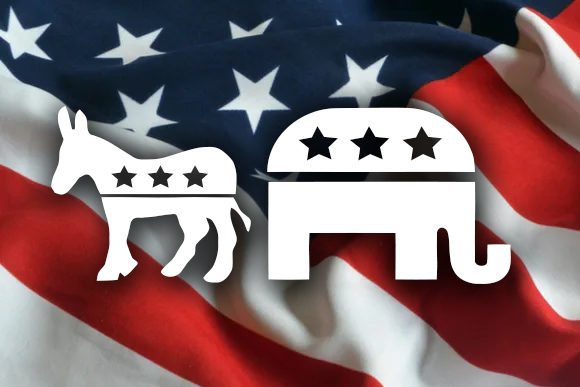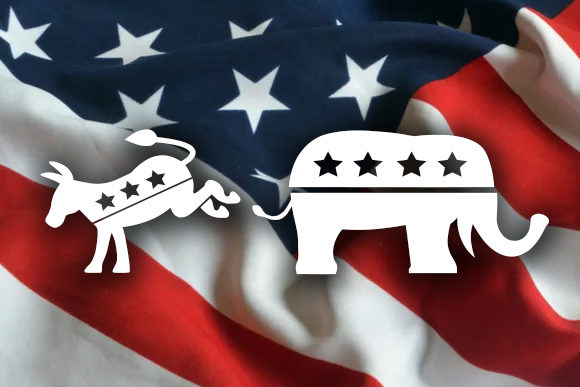
The Ultimate Font for US Elections: A Designer’s Dream Come True
I’ll never forget the time I was working on a project for a client’s US elections campaign. I was struggling to find the perfect font that would capture the essence of American democracy. That’s when I stumbled upon Elections Font, a unique and amazing dingbats font that features donkeys and elephants. It was love at first sight! 💕
What I Love About Elections Font
- ✨ Unique and eye-catching designs featuring donkeys and elephants, perfect for US elections-related projects
- ✅ Easy to use and navigate, even for those who aren’t font experts
- 🌈 A wide range of glyphs and stylistic alternates to add some personality to your designs
While Elections Font is an amazing tool, there are a few things to keep in mind ⚠️:
- 🤔 Some users might find the font a bit limited in terms of versatility, as it’s specifically designed for US elections-related projects
- ⚠️ The font might not be suitable for projects that require a more formal or traditional look
The Story Behind Elections Font
Elections Font was created by a team of designers who wanted to create a unique and fun font that would capture the spirit of American democracy. Inspired by the iconic donkey and elephant symbols of the Democratic and Republican parties, Elections Font is a one-of-a-kind dingbats font that’s perfect for US elections-related projects.
| What type of projects is Elections Font best suited for? | Elections Font is perfect for projects related to US elections, such as campaign posters, flyers, and social media graphics. |